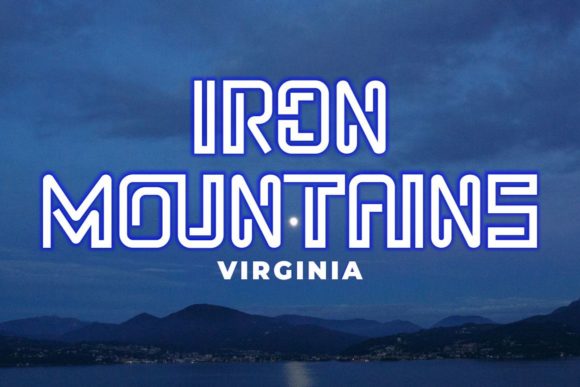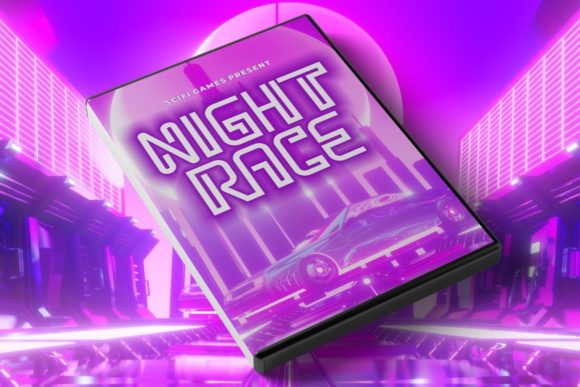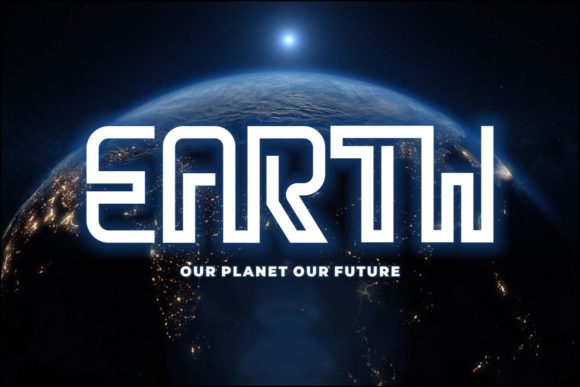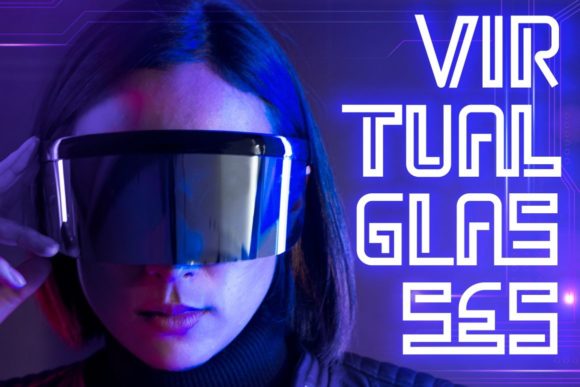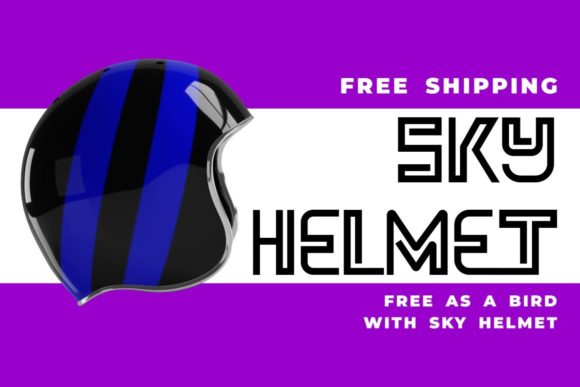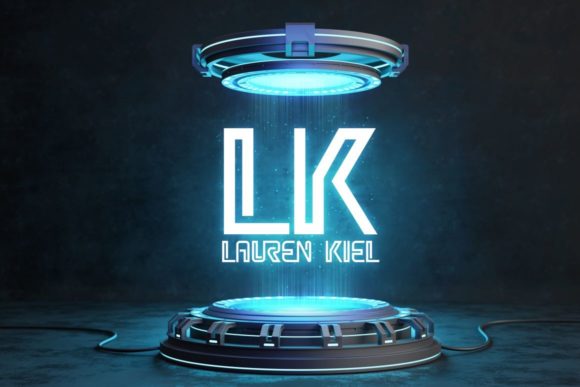
Introduction to Planet Adventure Font Font
Fonts play a crucial role in design, and the Planet Adventure Font font is a typeface that brings both character and versatility to any project. Whether you’re working on a branding project, a website, or a print design, the Planet Adventure Font font offers a unique style that can elevate your work.
Planet adventure – SCI-Fi display font.
This font is inspired by techno circuit boards, combined with the sci-fi font type Planet Adventure is great for any display purpose, logos, T-shirts, apparel, product packaging, title header, posters, merchandise, social media, labels, branding, etc.
Key Features of Planet Adventure Font Font
Why Choose Planet Adventure Font Font?
The Planet Adventure Font font is more than just a typeface – it’s a design tool that helps you communicate your message with style and clarity. Its unique character set and versatile design make it suitable for a wide range of applications, from elegant invitations to bold headlines.
With its carefully crafted letterforms and balanced proportions, the Planet Adventure Font font ensures readability and visual appeal across all mediums.
What makes Planet Adventure Font font special?
The Planet Adventure Font font stands out with its unique design, exceptional readability, and versatility across various design applications.